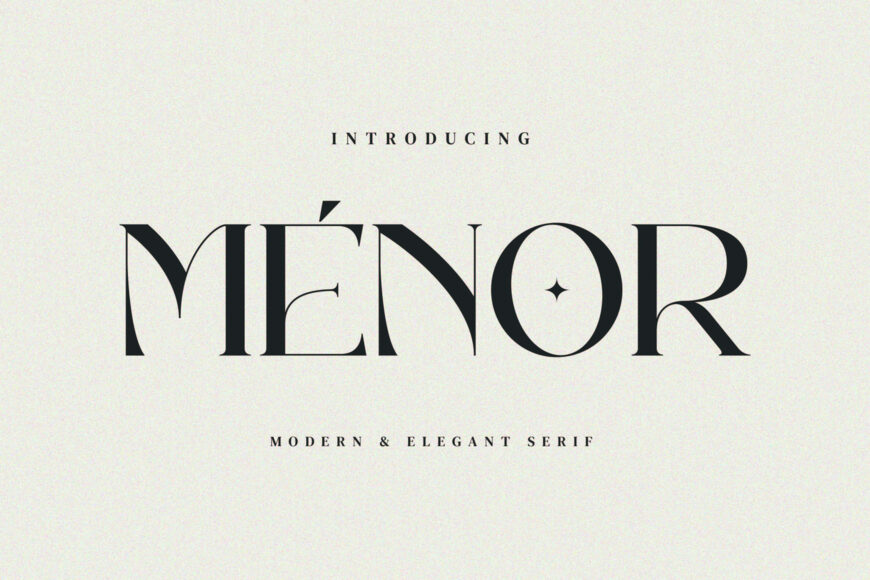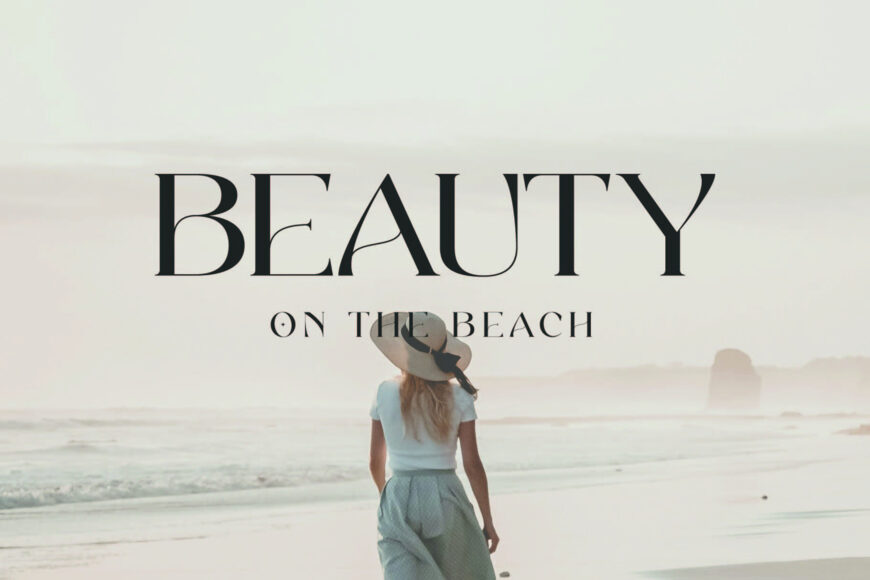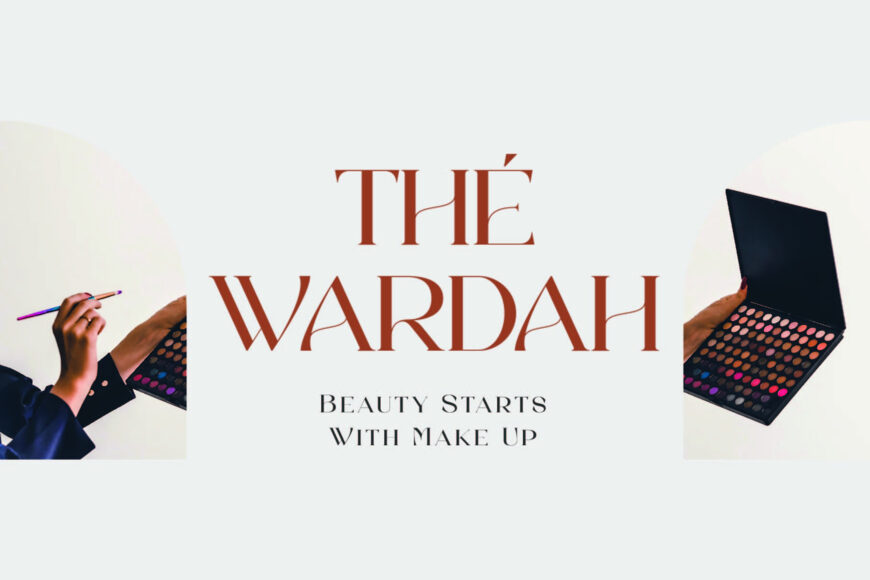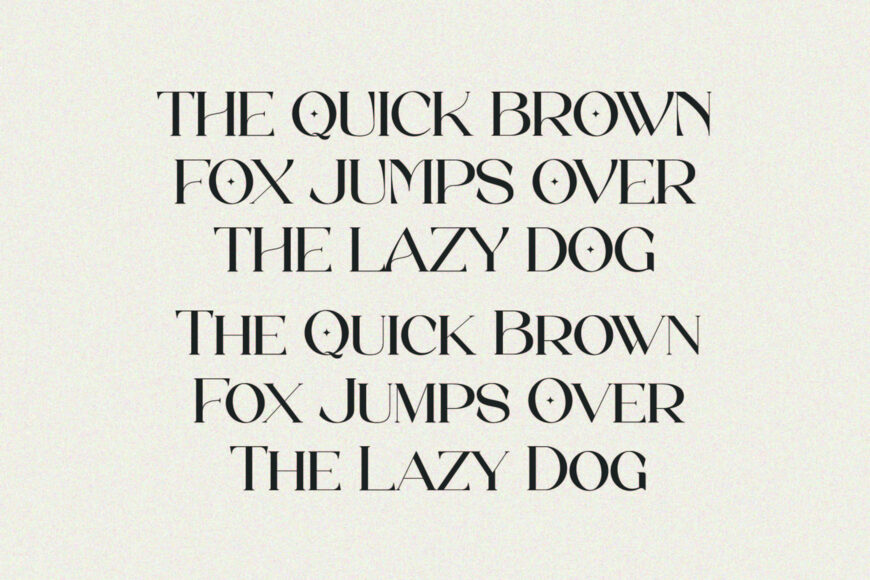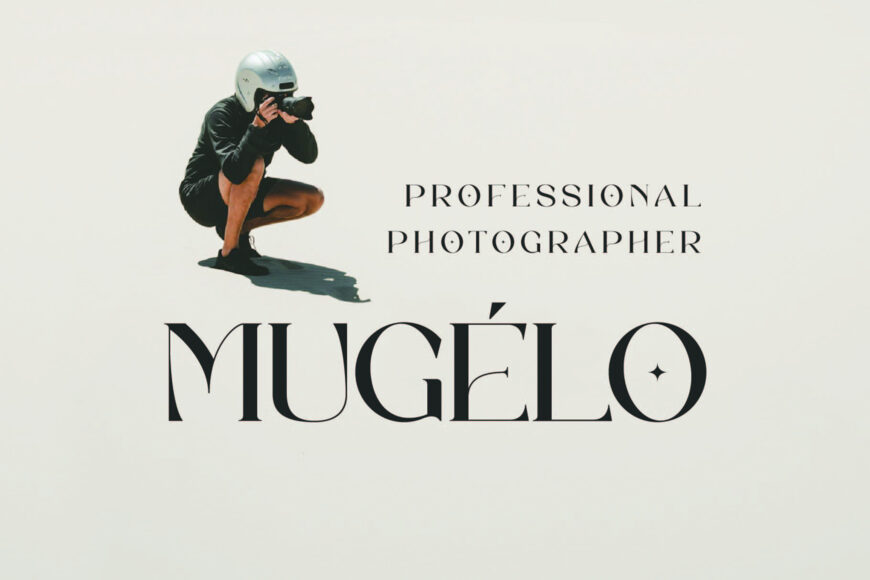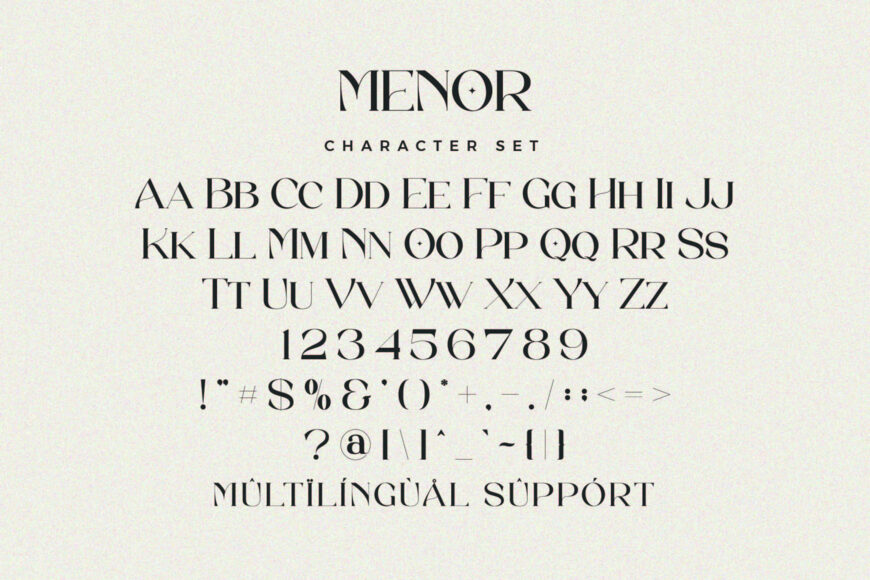
Menor Font
Menor is a modern, elegant serif typeface designed by Aqeel Art Studio that blends classic typographic sophistication with contemporary design.
Featuring refined letterforms, high-contrast strokes, and stylish curves, it maintains excellent readability while exuding high-end style. It is ideal for luxury branding, editorial layouts, premium product packaging, logos, and event invitations.